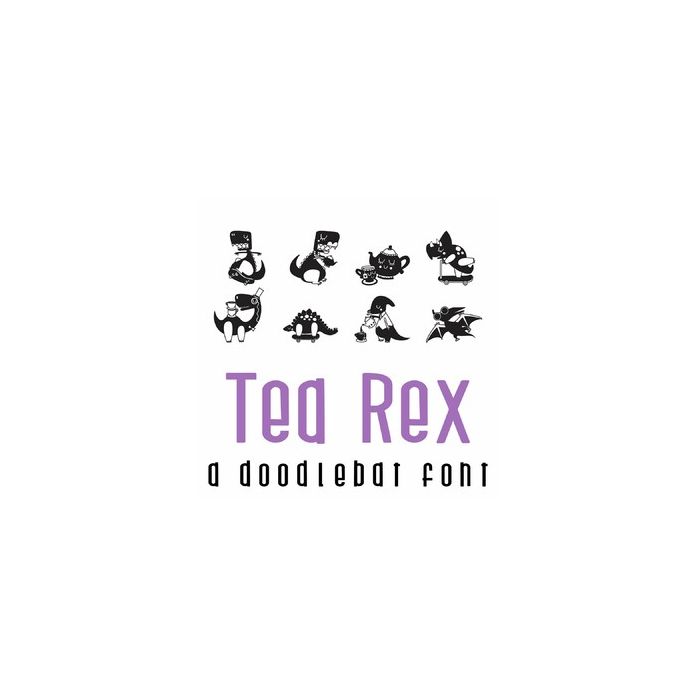
This fun doodlebat font features 26 adorable dinosaurs having tea, playing games, and doing other sports. Perfect for cards, crafts, gifts, decor, scrap book pages, planner stickers and more!